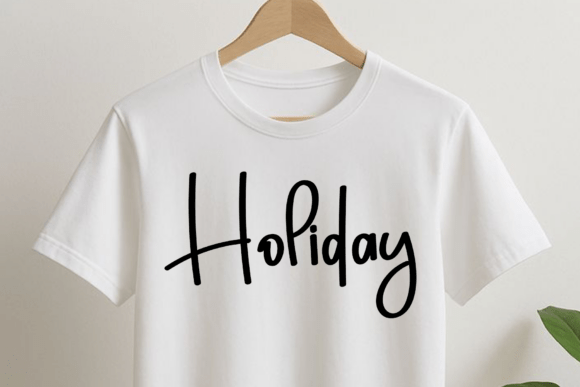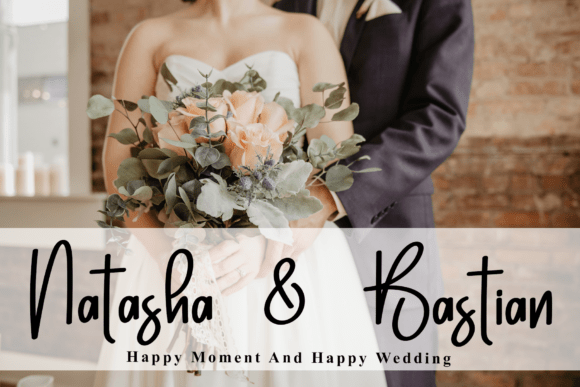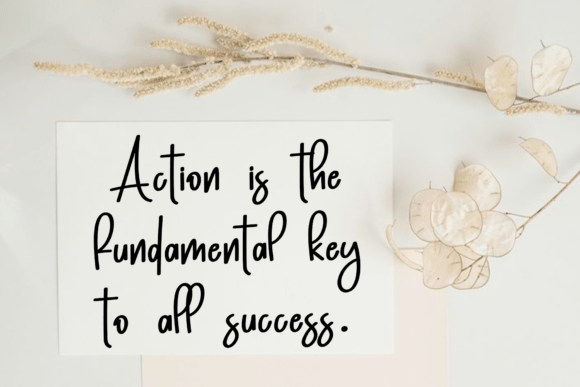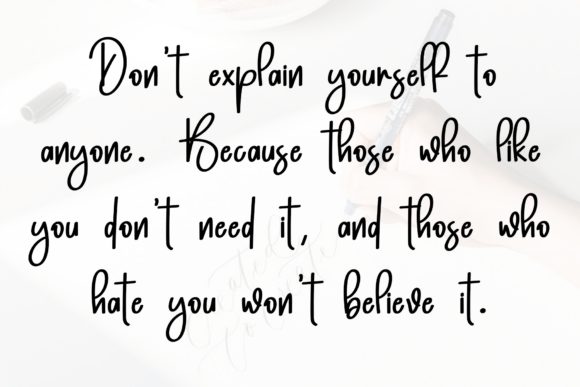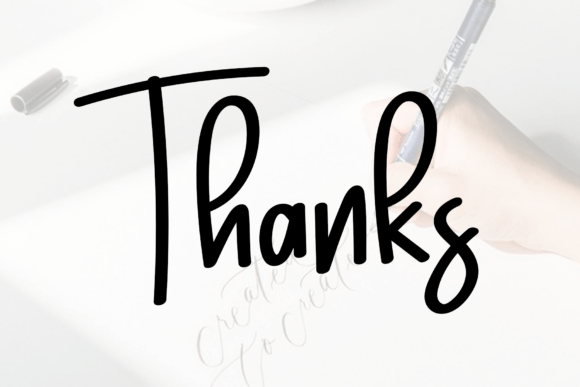
The Art of Elegant Typography
As designers, we’ve all been there – staring at a blank page, envisioning the perfect font to bring our creative vision to life. For me, it was the moment I stumbled upon the Book Calligraphy Font, and I knew I had to have it. Its exquisite, elongated loops and flowing swashes transported me to a world of luxury and refinement.
Book Calligraphy Font is a masterfully crafted script typeface, designed to make a statement in high-stakes designs. With its dramatic capital letters and impressive terminal swashes, it’s the perfect choice for designers seeking to add a touch of vintage glamour and refined beauty to their work. Whether it’s a high-end wedding invitation, formal event branding, or product packaging, Book Calligraphy Font is sure to impress.
Key Features of Book Calligraphy Font
- Unique Characteristics: The Book Calligraphy Font features elegant, connected letterforms with subtle flair and flair strokes, evoking the feel of traditional calligraphy.
- Customization Options: The font includes a range of customization options, including ligatures, swashes, and alternate characters, allowing designers to add a personal touch to their work.
Book Calligraphy Font Review
Overall, I think the Book Calligraphy Font is a beautiful and elegant choice for any project. ✨ The flowing lines and subtle flourishes add a touch of sophistication and romance to any text. It’s perfect for wedding invitations, book covers, or any other project where you want to evoke a sense of classic elegance.
The font is highly customizable, allowing you to adjust the size, color, and spacing to suit your needs. ✨ It also comes in a range of weights and styles, from light to bold, which is great for creating visual interest and hierarchy in your design.
- Beautiful, elegant design
- Range of weights and styles
- Perfect for classic, romantic designs
- May be difficult to read at very small sizes ⚠️
- Can be overpowering if used too much ⚠️
- May not be suitable for modern or minimalist designs ⚠️
In conclusion, the Book Calligraphy Font is a beautiful and elegant choice for any project. While it may have some limitations, it’s a great option for designers who want to add a touch of classic sophistication to their work.
Book Calligraphy Font is ideal for:
2. Book covers and titles.
3. Personalized gifts and cards.